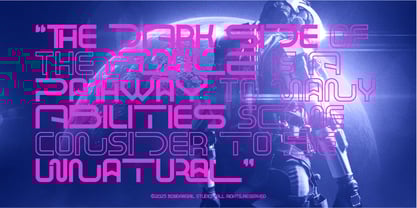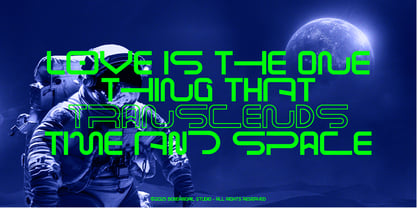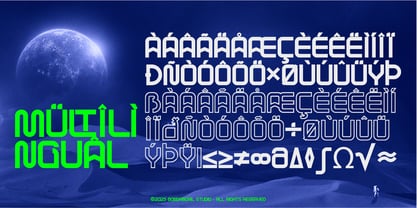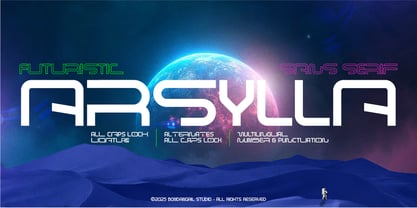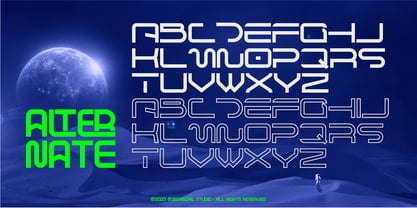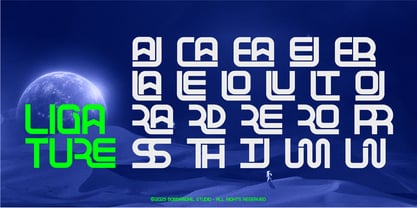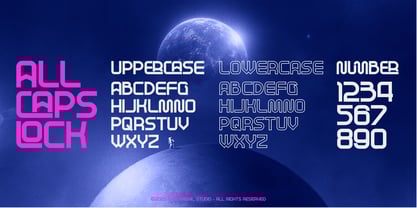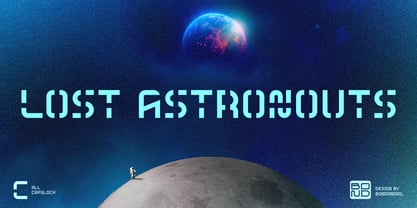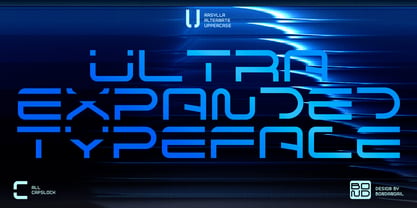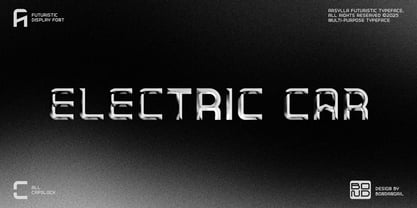
Arsylla
by BondanGail
Introducing Arsylla - Futuristic Typeface Arsylla is a modern futuristic typeface that blends clean geometric construction with subtle angular cuts, creating a sharp yet approachable high-tech look. Its smooth curves and engineered details give it a digital, sci-fi personality while maintaining strong readability and visual balance. Designed for impact, Arsylla excels in technology branding, esports visuals, UI interfaces, posters, and forward-thinking creative projects. Whether you're building a cyber-inspired identity or a modern tech layout, Arsylla delivers a bold, innovative voice that feels ahead of its time. Arsylla includes: • 1 style Typefaces Regular • All Caps Lock Font • Uppercase, Numeral, Symbol and Punctuation • Uppercase & Lowercase Alternates • Ligature • Multilingual • Works on PC & Mac Accessible in Adobe Illustrator, Adobe Photoshop, Adobe InDesign, even work on Microsoft Word. • Image used: All photographs/pictures/vectors used in the preview are not included, they are intended for illustration purposes only.